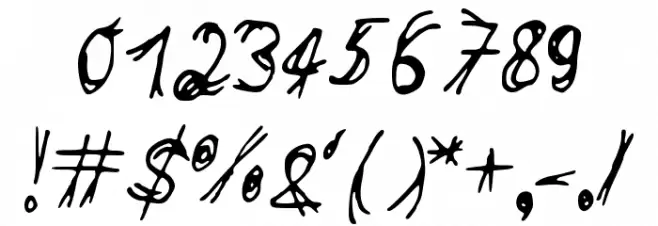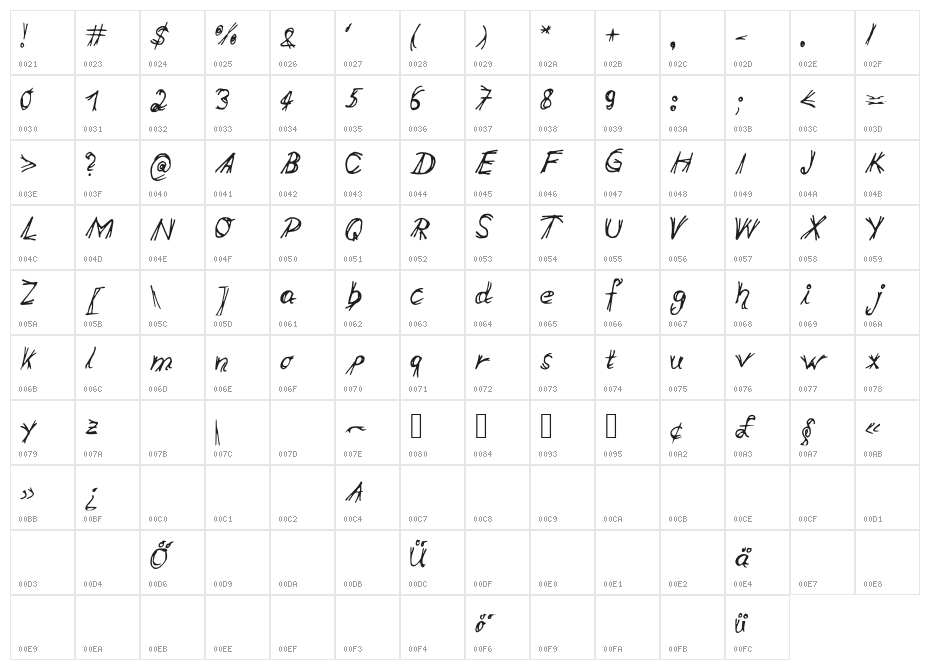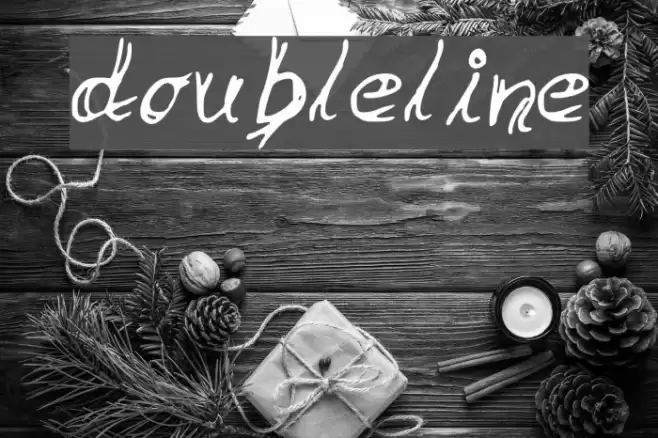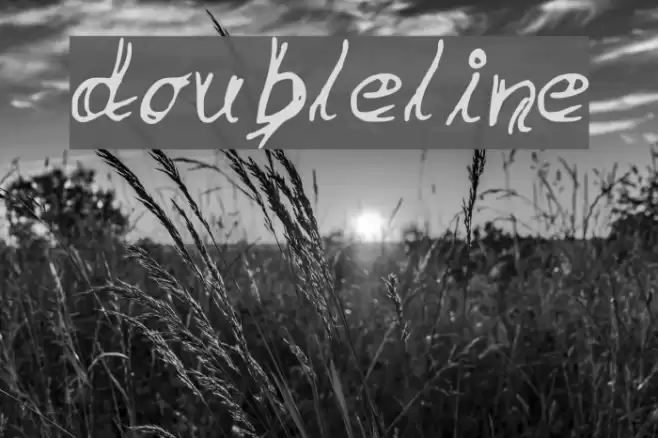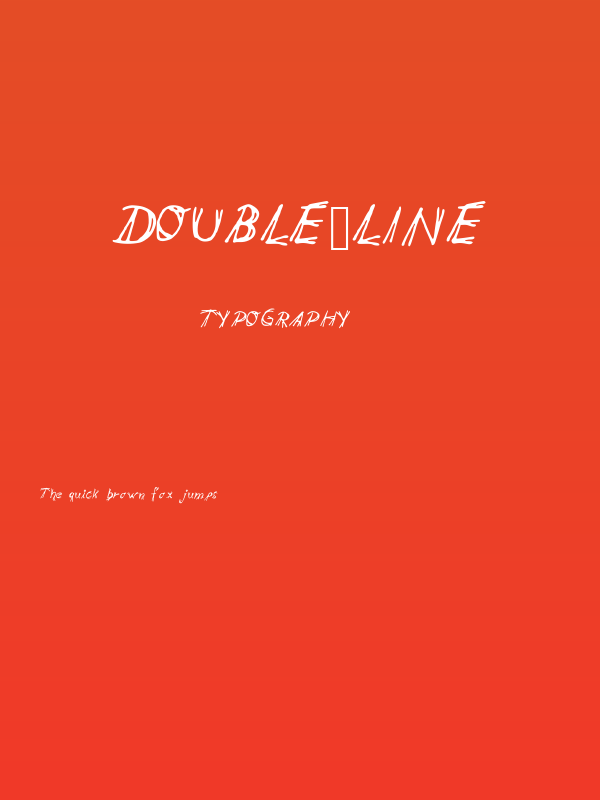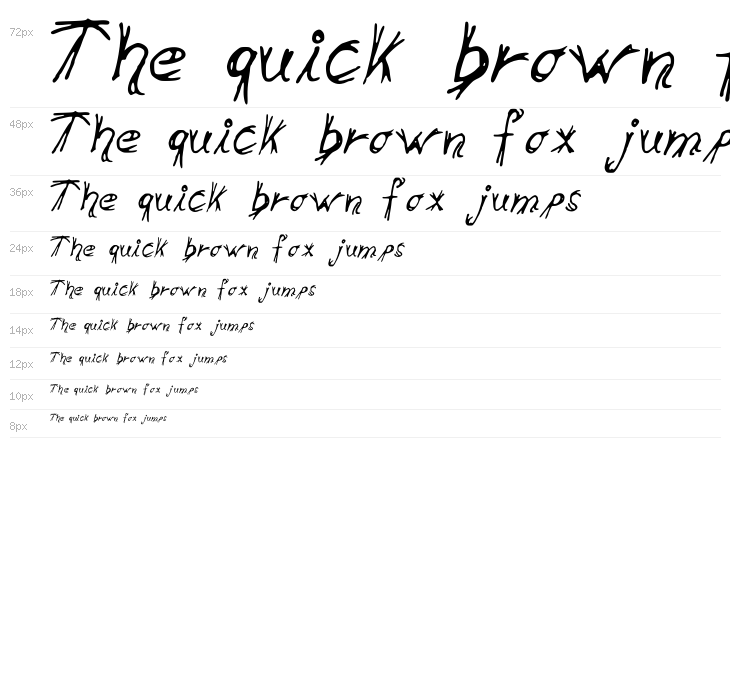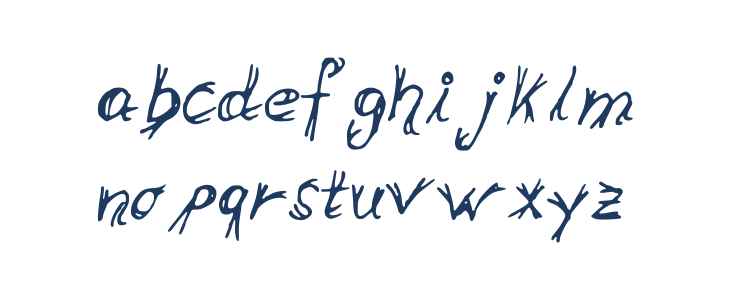
double_line Font
double_line Description
This font features a dynamic and energetic style, characterized by its sharp, angular strokes and a sense of movement. The letters are crafted with a unique flair, giving each character a distinct personality. The uppercase letters exhibit a bold presence, while the lowercase letters maintain a consistent flow, adding to the overall fluidity of the design. Numbers and special characters follow the same expressive style, making this font suitable for creative and artistic projects. The font's edgy appearance is perfect for capturing attention and conveying a sense of urgency or excitement.
| Use Case | Headlines, Logos, Artistic designs |
| Proposed Projects | Ideal for posters, album covers, graffiti art, and edgy branding projects. |